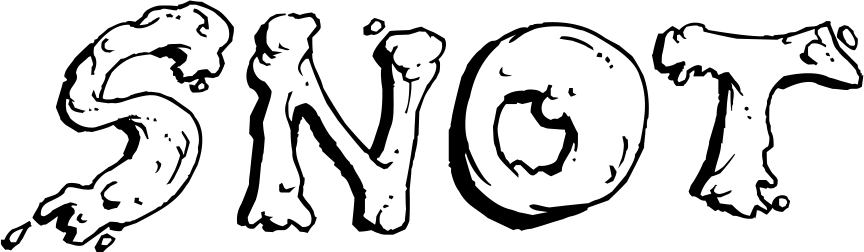
Snot Font
Designed byToxic Type
Snot font is inspired by cheese, and you can see melting droplets splashing on any of the characters. This dripping and gross font is also used to design the titles and posters of many zombie and monster animations.
One of the features of this melting font is that it does not have lowercase letters, but you can use it for many different designs on T-shirts, animated magazine titles, and video games.
“um, you got something under your nose.”